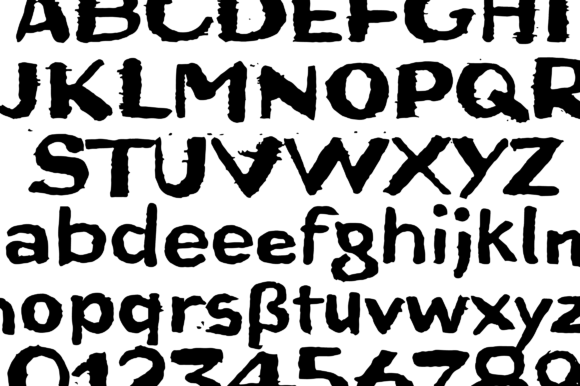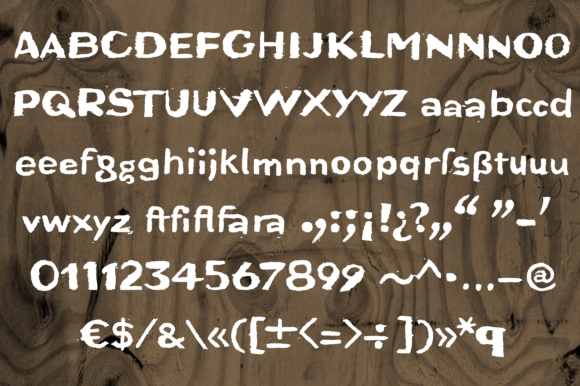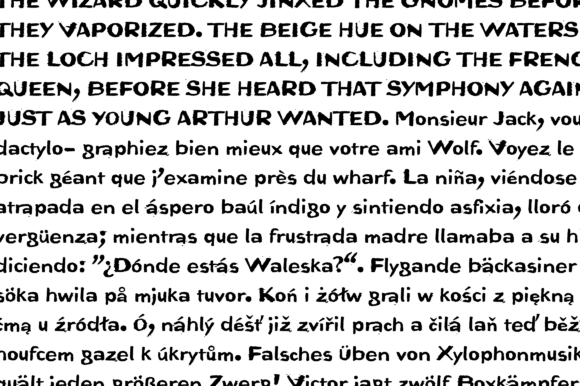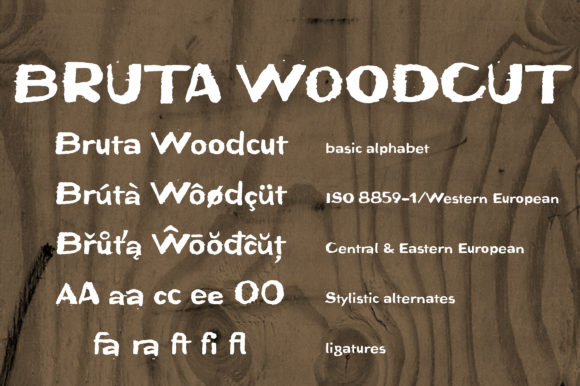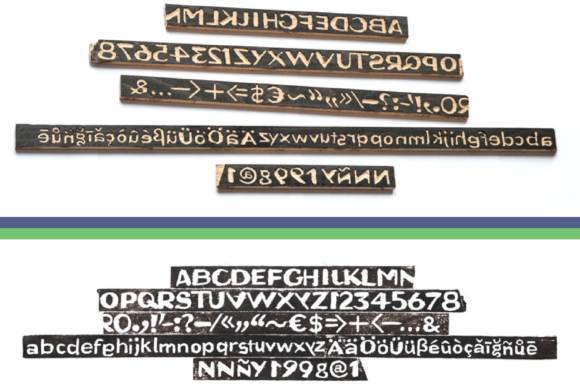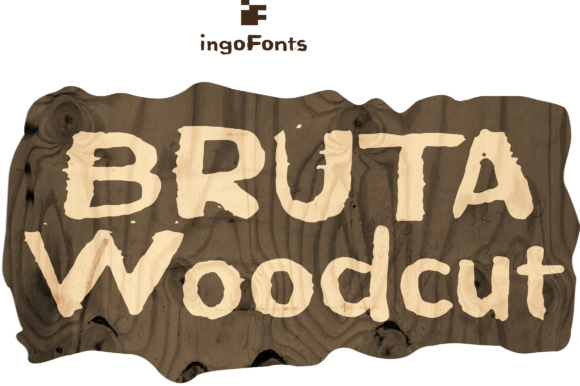
Unleash Your Creativity with Bruta Woodcut Font
Are you tired of using the same old fonts in your design projects? Look no further than Bruta Woodcut, a fun and bold decorative font that’s sure to add a touch of organic charm to any design. With its unique blend of rustic and modern elements, Bruta Woodcut is the perfect choice for designers and crafters looking to make their projects stand out.
The Characteristics of Bruta Woodcut Font
Bruta Woodcut is a decorative font that’s inspired by the natural world. Its organic feel and bold lines give it a distinctive look that’s both eye-catching and memorable. The font features a range of characteristics that make it perfect for a variety of design projects, including:
- Bold and playful lines: Bruta Woodcut features bold, playful lines that give it a fun and energetic feel.
- Organic feel: The font’s organic feel makes it perfect for designs that require a natural, earthy look.
- Unique letterforms: Each letterform in Bruta Woodcut is unique, adding to the font’s charm and character.
Why Choose Bruta Woodcut Font?
So why choose Bruta Woodcut font for your next design project? Here are just a few reasons:
- Adds a touch of personality: Bruta Woodcut adds a touch of personality to any design project, making it perfect for designers who want to create unique and memorable designs.
- Versatile: The font is versatile and can be used in a variety of design projects, from branding and packaging to posters and flyers.
- Easy to read: Despite its bold and playful lines, Bruta Woodcut is easy to read, making it perfect for designs that require a clear and concise message.
How to Use Bruta Woodcut Font in Your Design Projects
Using Bruta Woodcut font in your design projects is easy. Here are a few tips to get you started:
- Pair it with a simple font: Pair Bruta Woodcut with a simple font to create contrast and add visual interest to your design.
- Use it for headings: Bruta Woodcut is perfect for headings and titles, where its bold and playful lines can really shine.
- Experiment with colors: The font looks great in a range of colors, from bold and bright to muted and earthy.
Bruta Woodcut font is perfect for designers and crafters who want to add a touch of organic charm to their projects. Here are a few ideas to get you started:
- Branding and packaging: Use Bruta Woodcut to create unique and memorable branding and packaging designs.
- Posters and flyers: The font is perfect for posters and flyers, where its bold and playful lines can really grab attention.
- Stationery and cards: Add a touch of personality to your stationery and cards with Bruta Woodcut font.
Bruta Woodcut font is a fun and bold decorative font that’s perfect for designers and crafters who want to add a touch of organic charm to their projects. With its unique blend of rustic and modern elements, Bruta Woodcut is sure to make any design project stand out. So why not give it a try and see the difference it can make?
Whether you’re a seasoned designer or just starting out, Bruta Woodcut font is a great choice for any design project. Its versatility, unique characteristics, and ease of use make it a must-have font for any designer or crafter looking to add a touch of personality to their work.